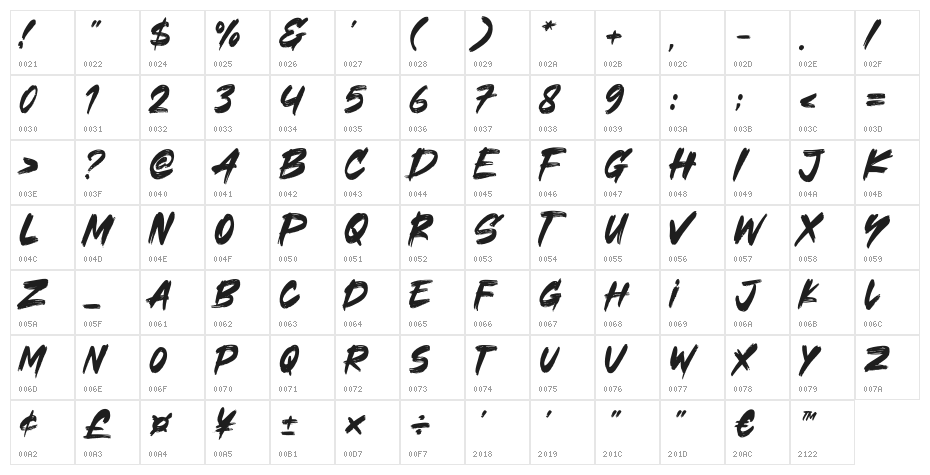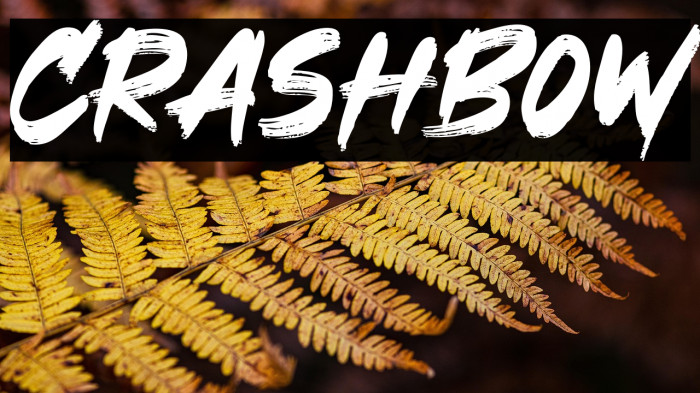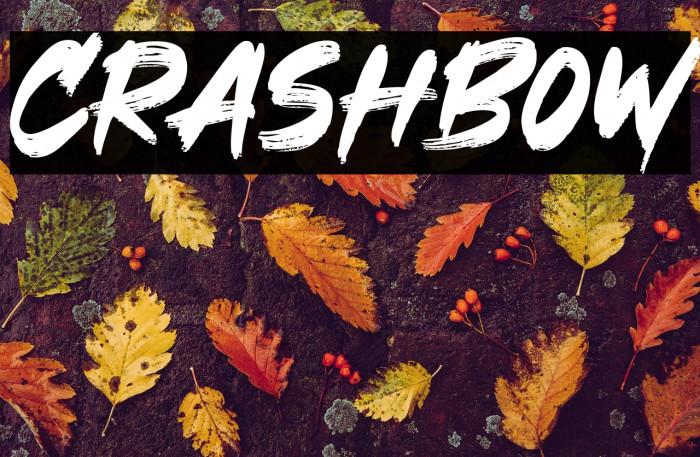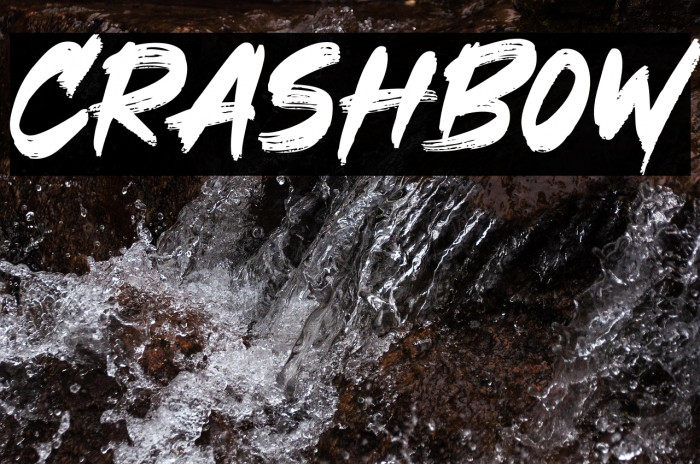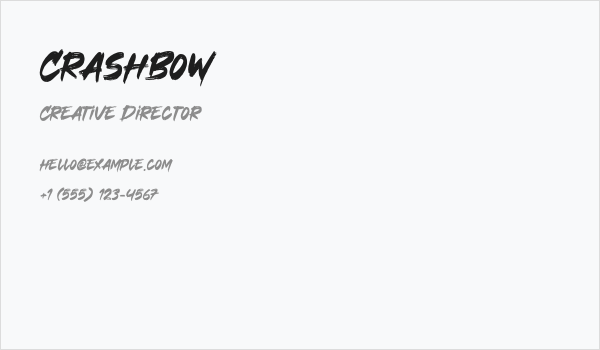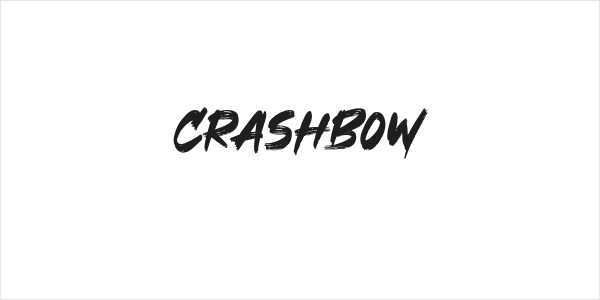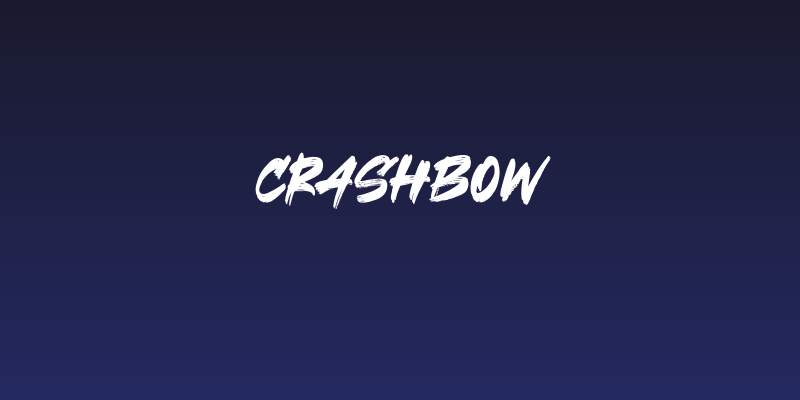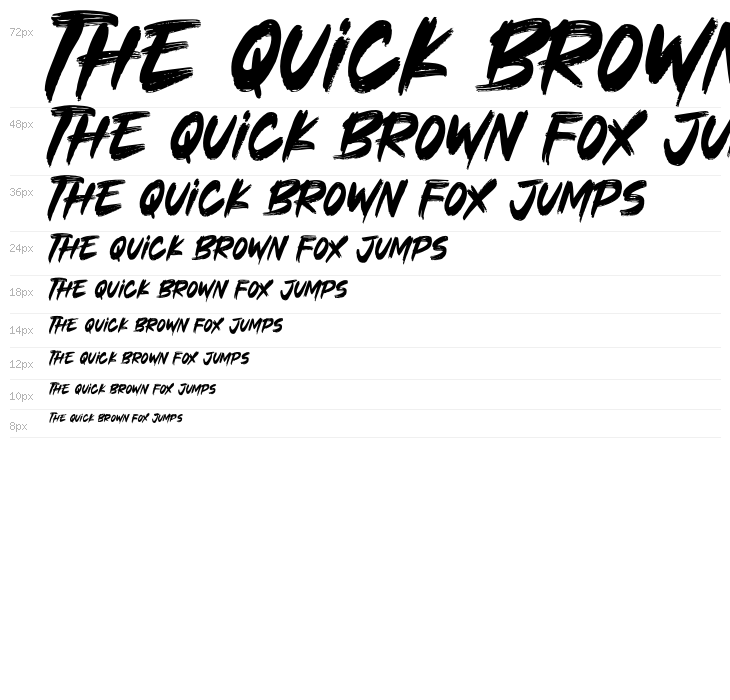
Crashbow Font
Crashbow Description
This font features a bold and dynamic brush style, characterized by its energetic strokes and rough edges. The letters are crafted with a sense of movement, giving them a lively and expressive appearance. The uppercase and lowercase letters maintain a consistent style, with a slightly slanted orientation that adds to the dynamic feel. Numbers and special characters are designed to match the boldness and style of the alphabet, ensuring a cohesive look across all elements. The font's brush-like texture and irregularities give it a handcrafted, artistic vibe, making it stand out in any design.
| Overall Style | Modern, Artistic |
| Proposed Projects | Ideal for projects that require a bold and artistic touch, such as posters, album covers, branding for creative industries, and social media graphics. |